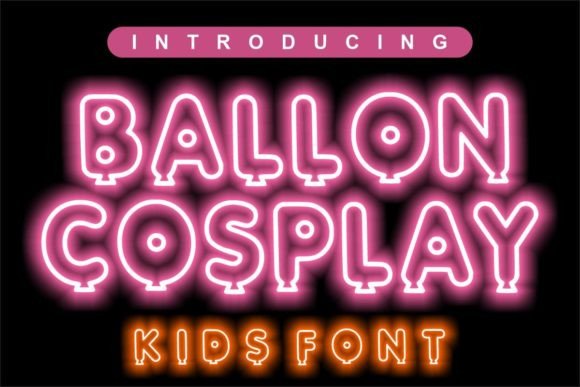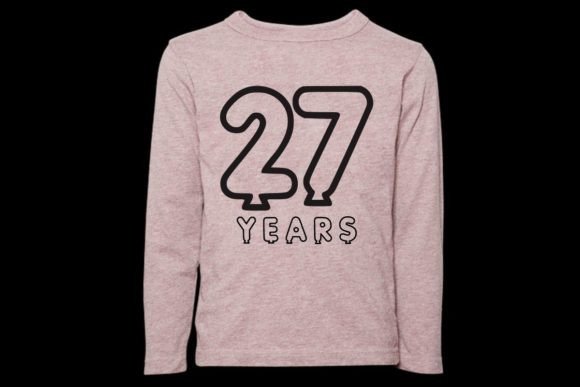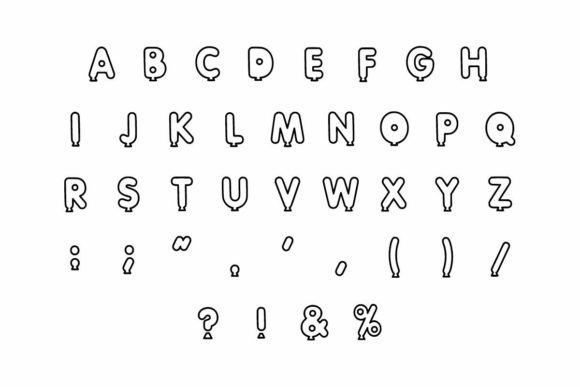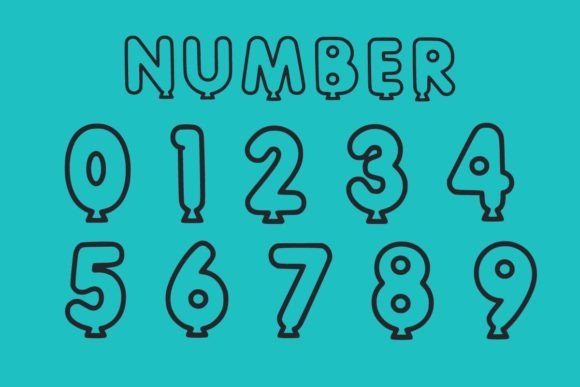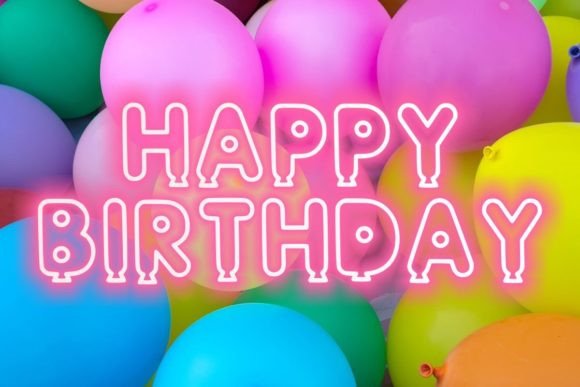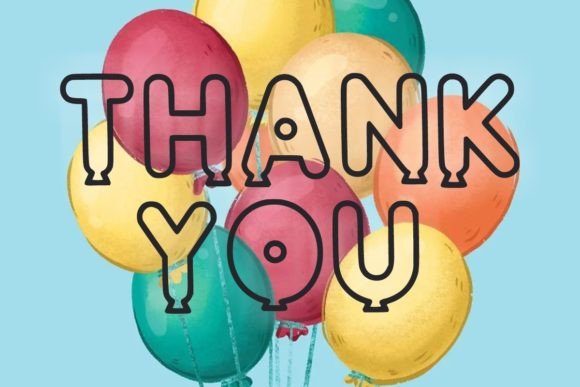
The Ultimate Friendliness: Unwrapping the Charm of Ballon Cosplay Font
Have you ever been in the middle of a design project, and suddenly, you’re stuck on finding the perfect font? I recall a recent experience where a client asked for a font that conveyed friendliness and playfulness for their children’s event branding. After scouring through numerous font libraries, I stumbled upon Ballon Cosplay Font, and it instantly became my go-to choice. In this article, we’ll dive into the world of Ballon Cosplay Font, exploring its features, uses, and what makes it an excellent addition to your design toolkit.
A Personal Review: What I Love About Ballon Cosplay Font
Ballon Cosplay Font is a colorful, bold, and childish display font that effortlessly conveys impeccable friendliness. Here are some aspects that I absolutely love about this font:
- ✨ Colorful and playful: The font’s vibrant colors and playful style make it perfect for designs that require a fun and youthful touch.
- ✅ Easy to read: Despite its bold and playful nature, Ballon Cosplay Font remains easy to read, making it suitable for various design applications.
- 🌈 Versatile: This font can be used for crafts, digital design, presentations, greeting cards, and more, making it an excellent all-around choice.
While Ballon Cosplay Font is an excellent choice, there are a few minor quirks to be aware of:
- 🤔 Limited use in formal designs: Due to its playful nature, Ballon Cosplay Font might not be the best fit for formal or professional designs.
- ⚠️ Glyph limitations: As with any font, there might be limitations to the available glyphs, which could impact its use in certain design projects.
The Designer Inspiration Behind Ballon Cosplay Font
While the actual designer behind Ballon Cosplay Font remains unknown, it’s easy to imagine that the inspiration came from the world of childhood wonder and playfulness. Perhaps the designer wanted to create a font that would evoke the same sense of excitement and joy that comes with blowing up colorful balloons.
| Font Name | Ballon Cosplay Font |
| Author | Infinity art Studio |
| What makes Ballon Cosplay Font so special? | Ballon Cosplay Font’s unique blend of color, playfulness, and friendliness makes it an excellent choice for designs that require a youthful touch. |
| Is Ballon Cosplay Font suitable for digital designs? | Absolutely! Ballon Cosplay Font is designed to be versatile and can be used for various digital design applications, including social media graphics, presentations, and more. |
| Can I use Ballon Cosplay Font for print designs? | Yes, Ballon Cosplay Font can be used for print designs, such as greeting cards, posters, and flyers. Its bold and playful nature makes it an excellent choice for eye-catching prints. |
In conclusion, Ballon Cosplay Font is an exceptional addition to any design toolkit. Its unique blend of friendliness, playfulness, and versatility makes it an excellent choice for various design projects. By exploring its features, quirks, and uses, you’ll be well on your way to creating stunning designs that capture the essence of fun and creativity.